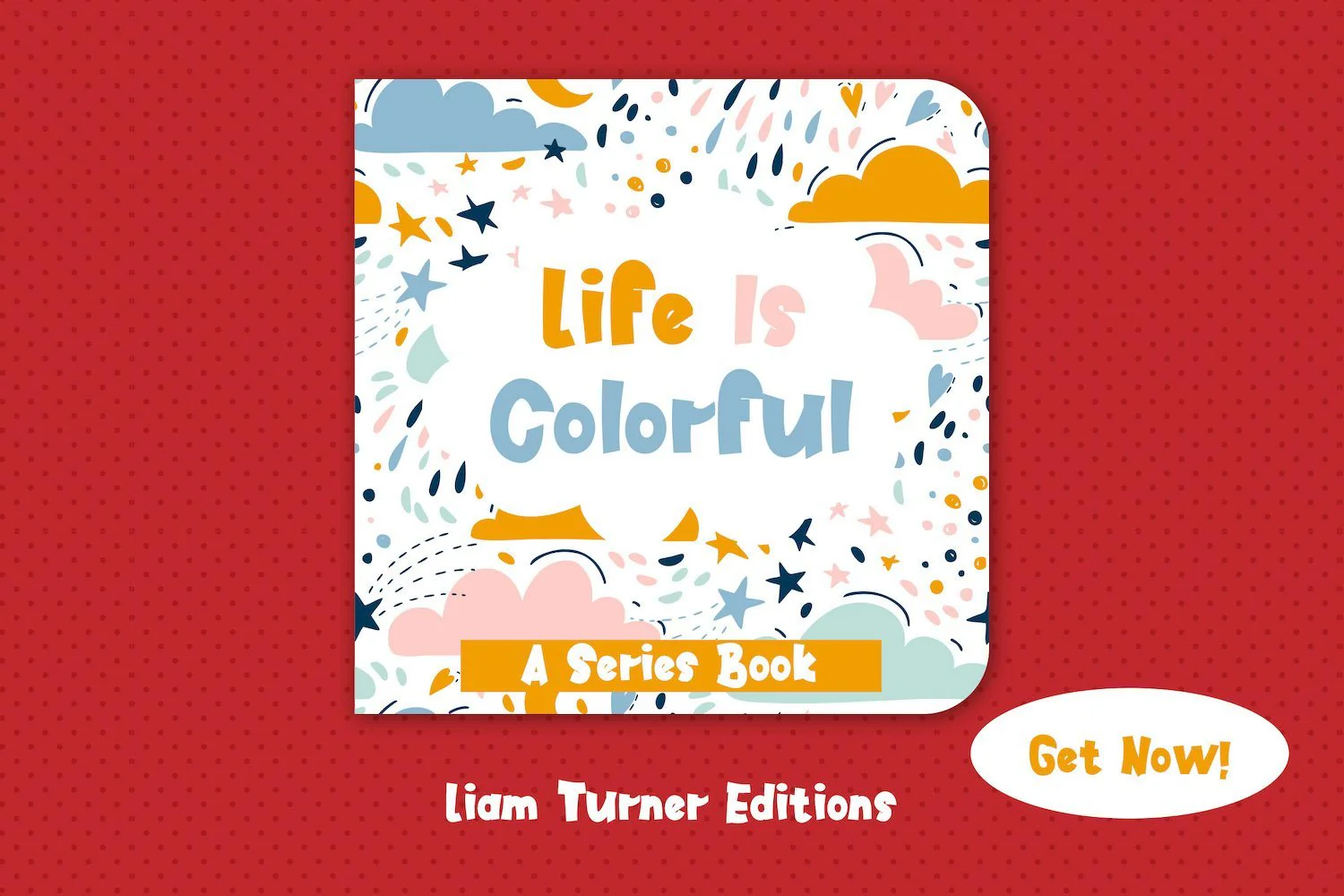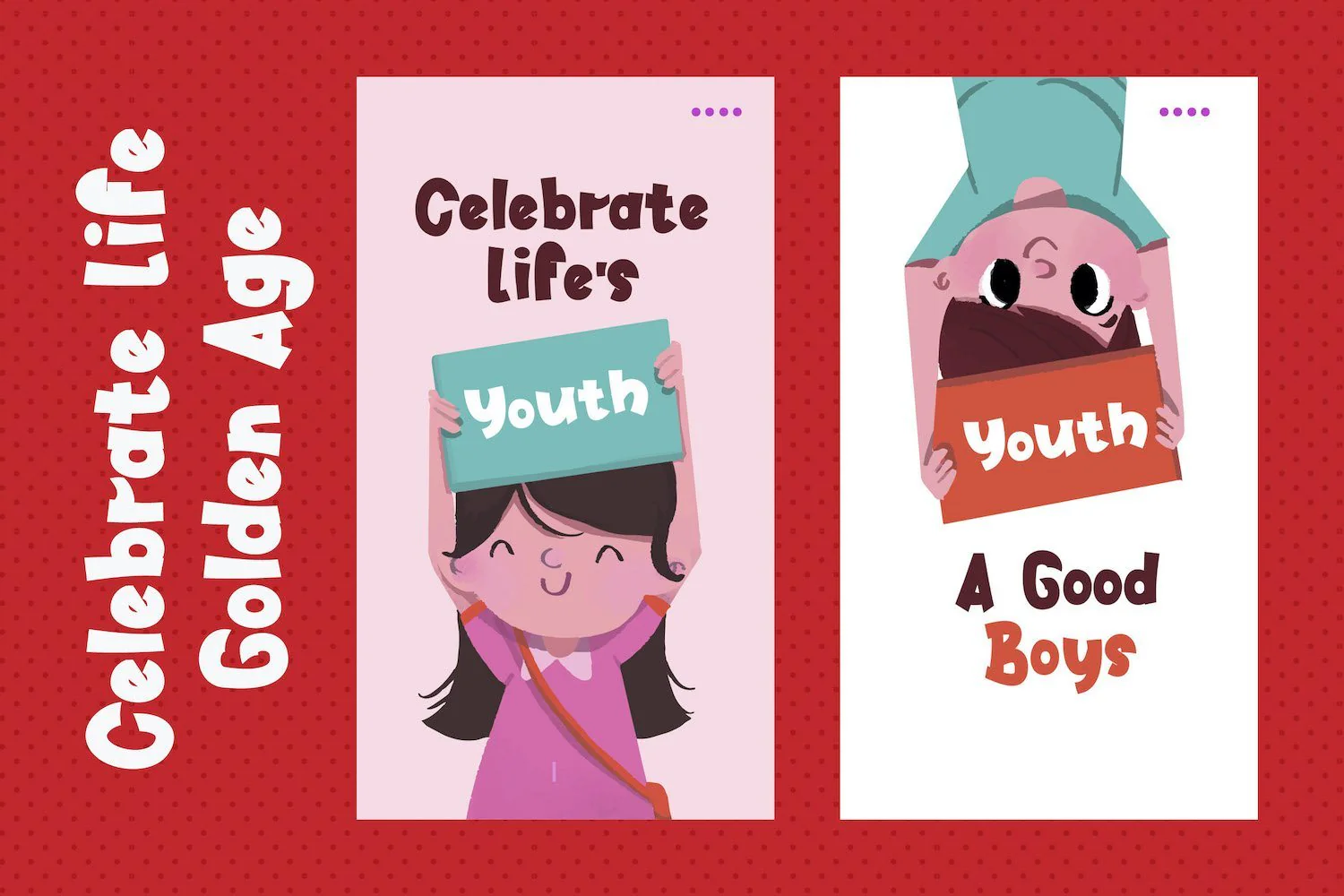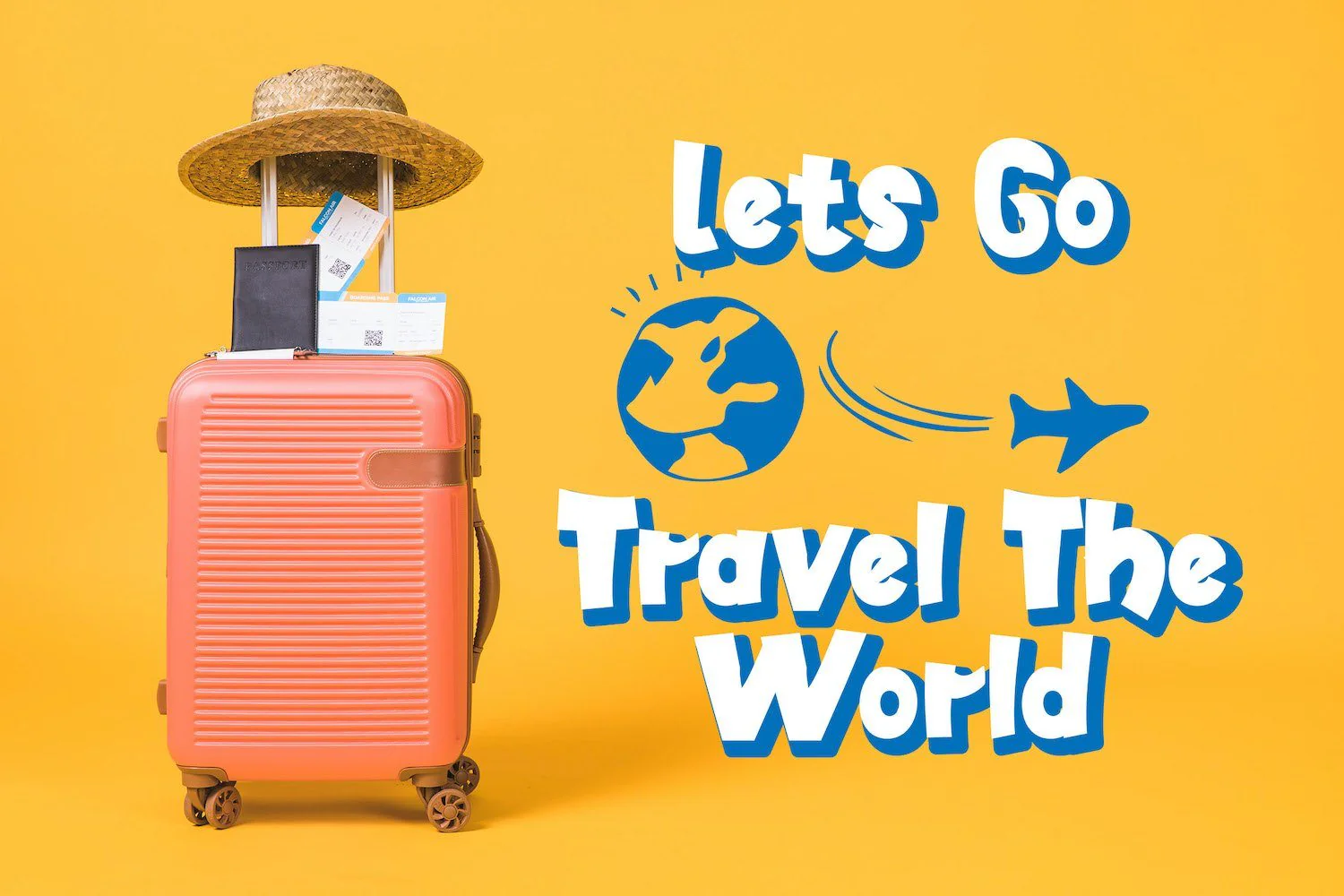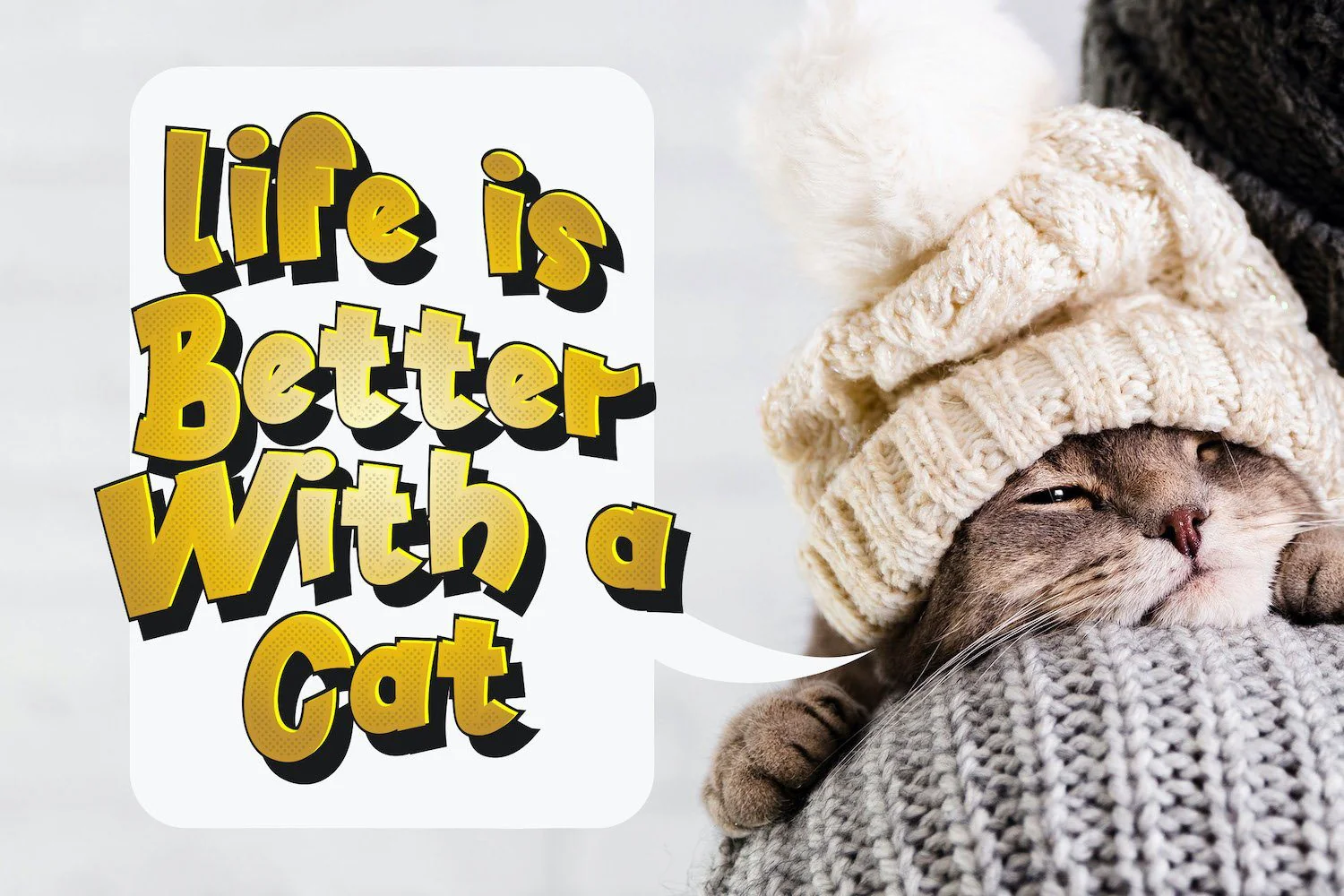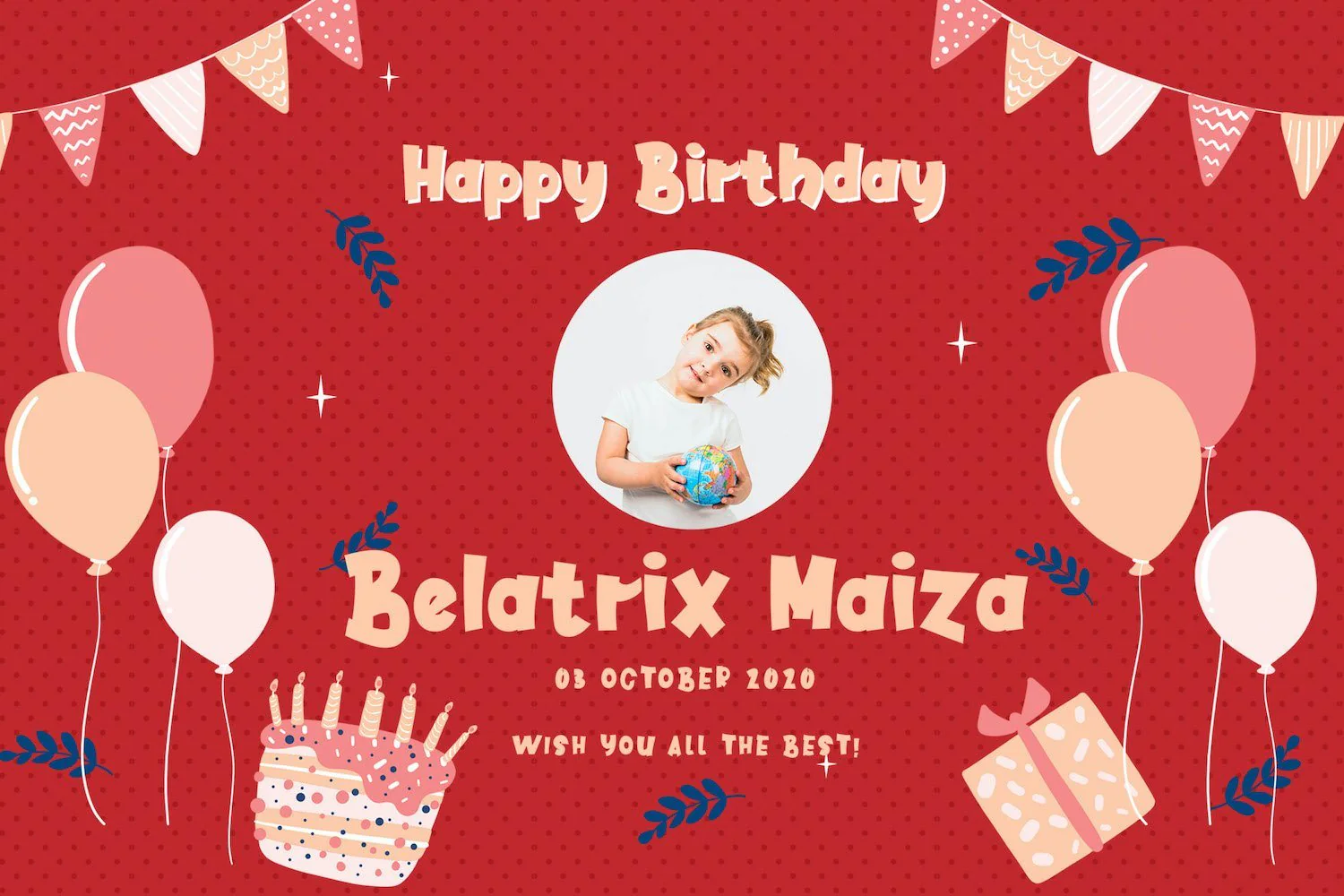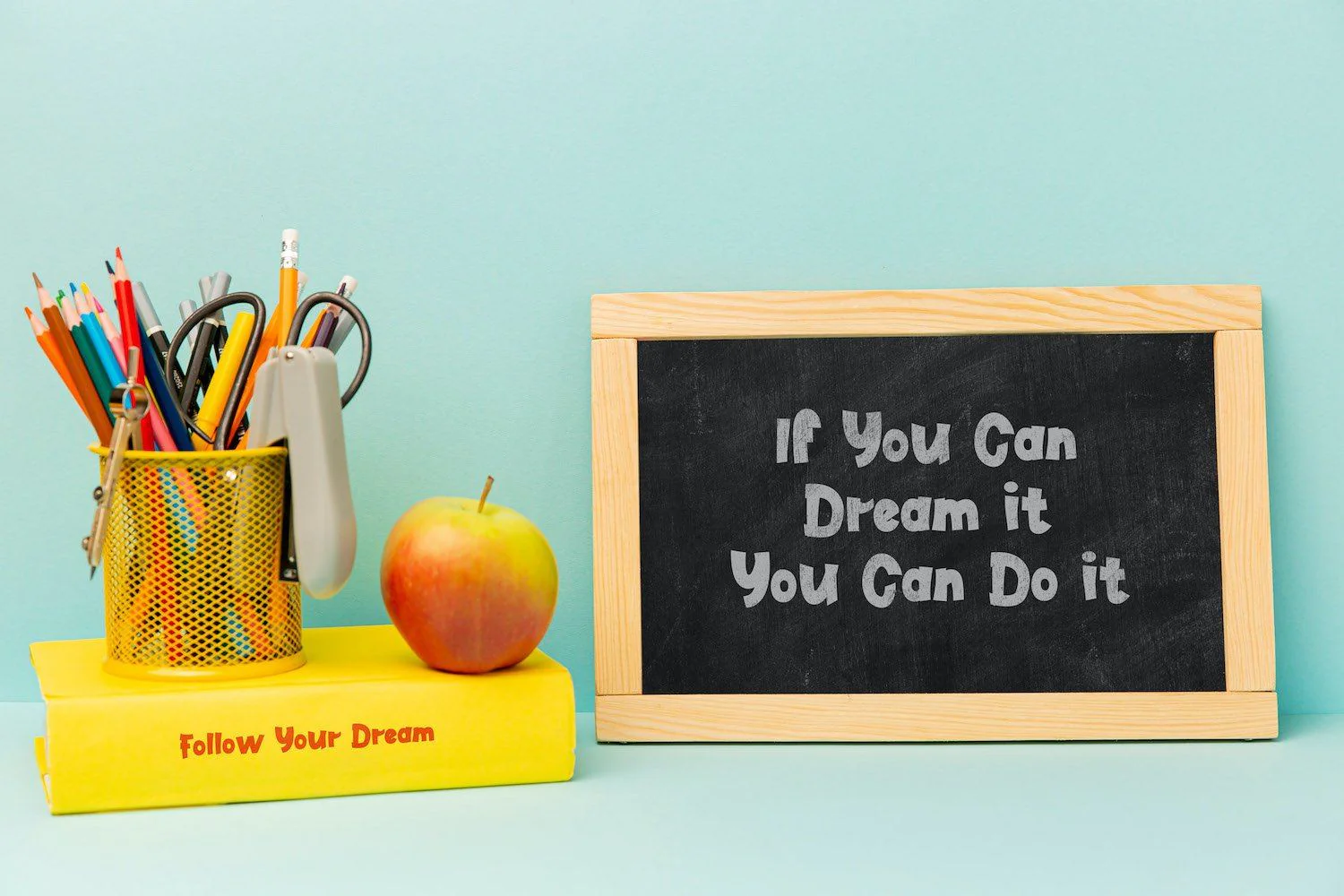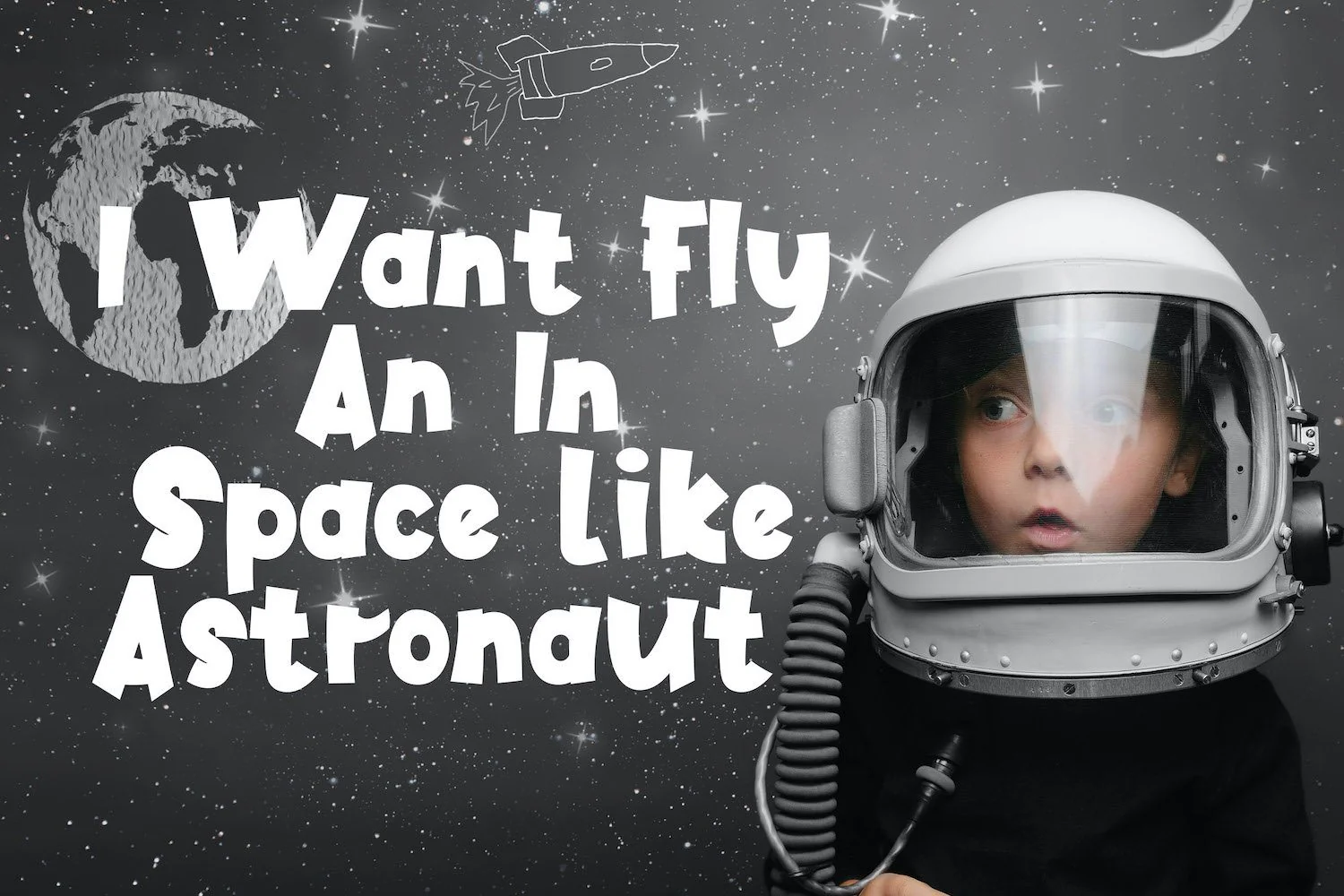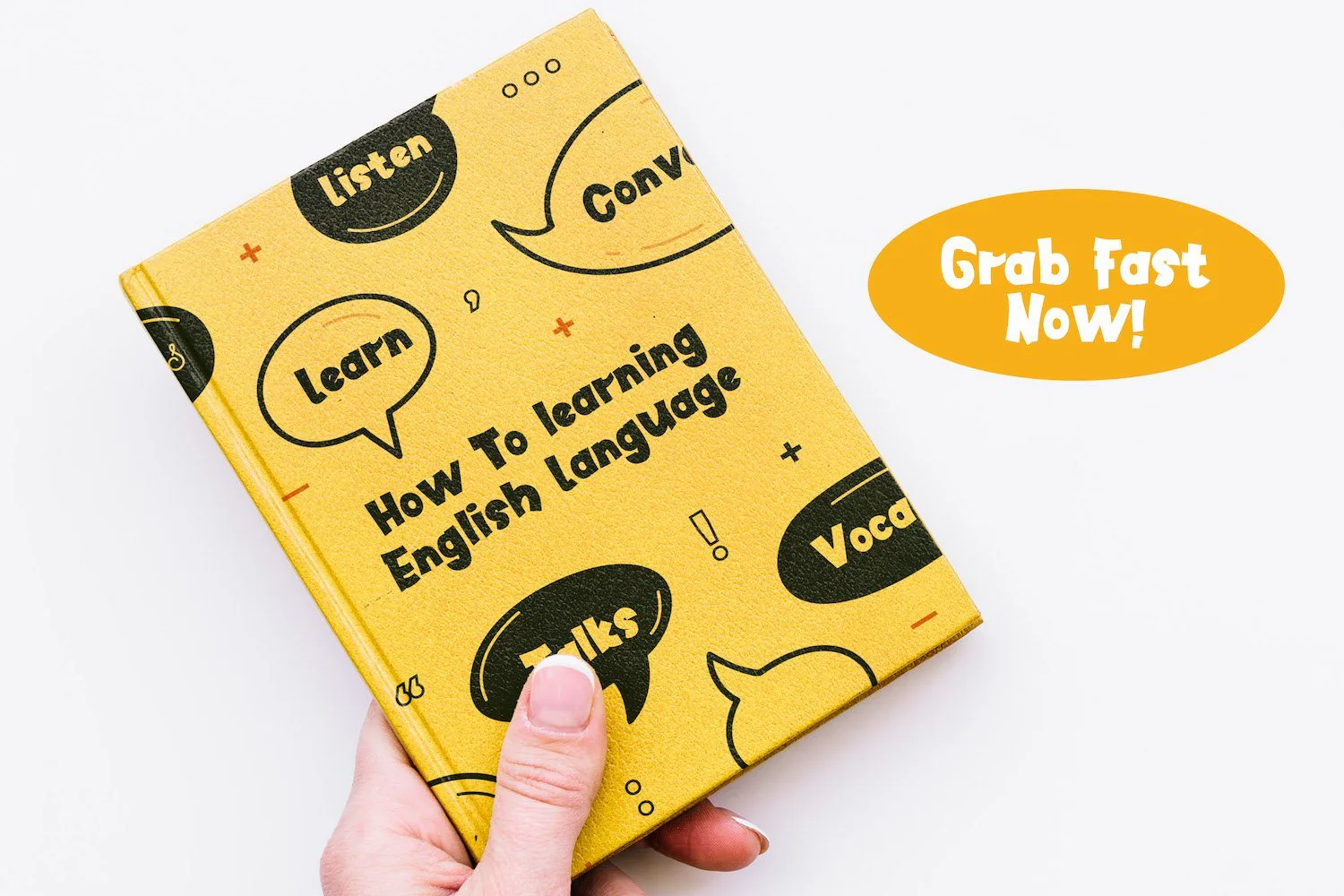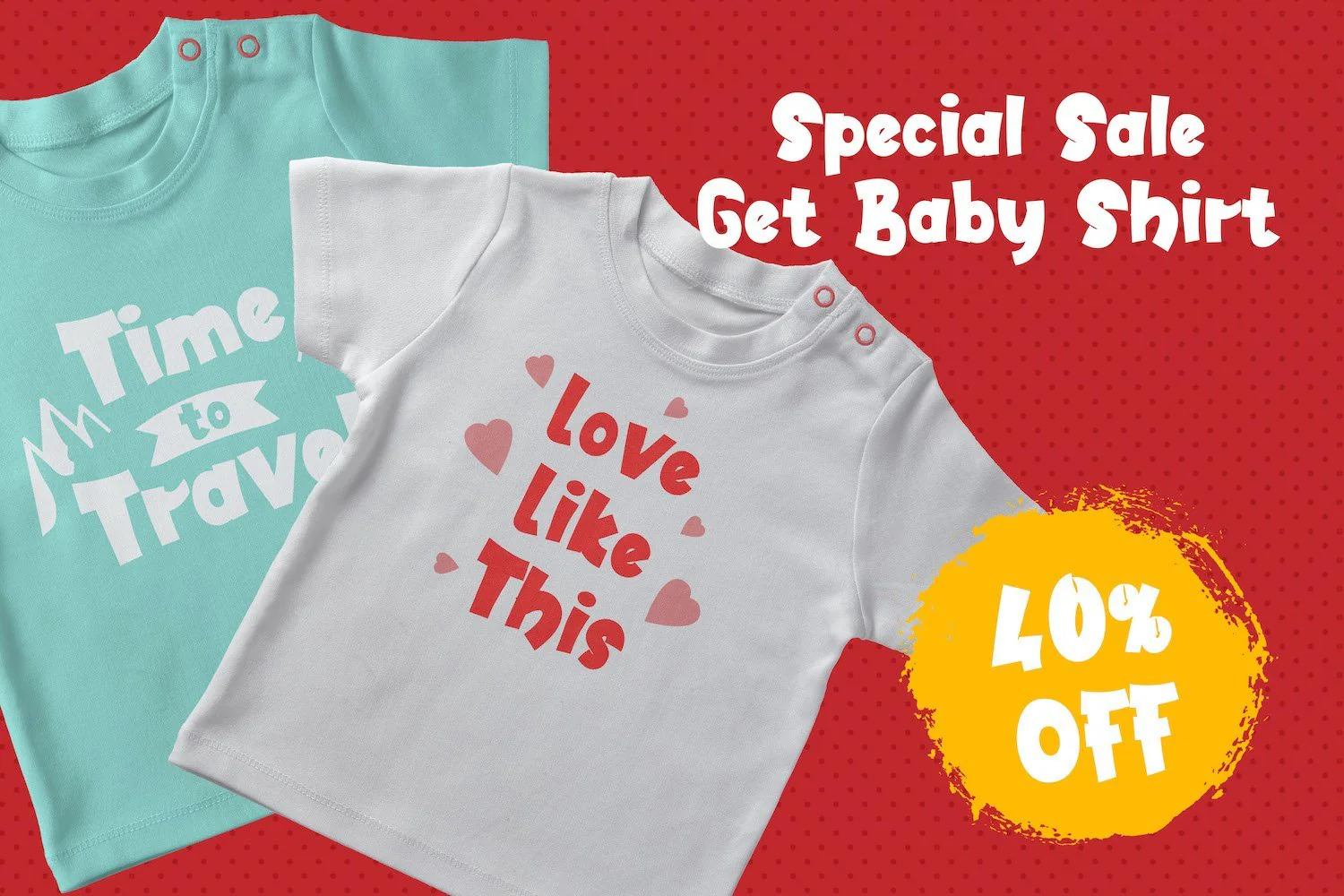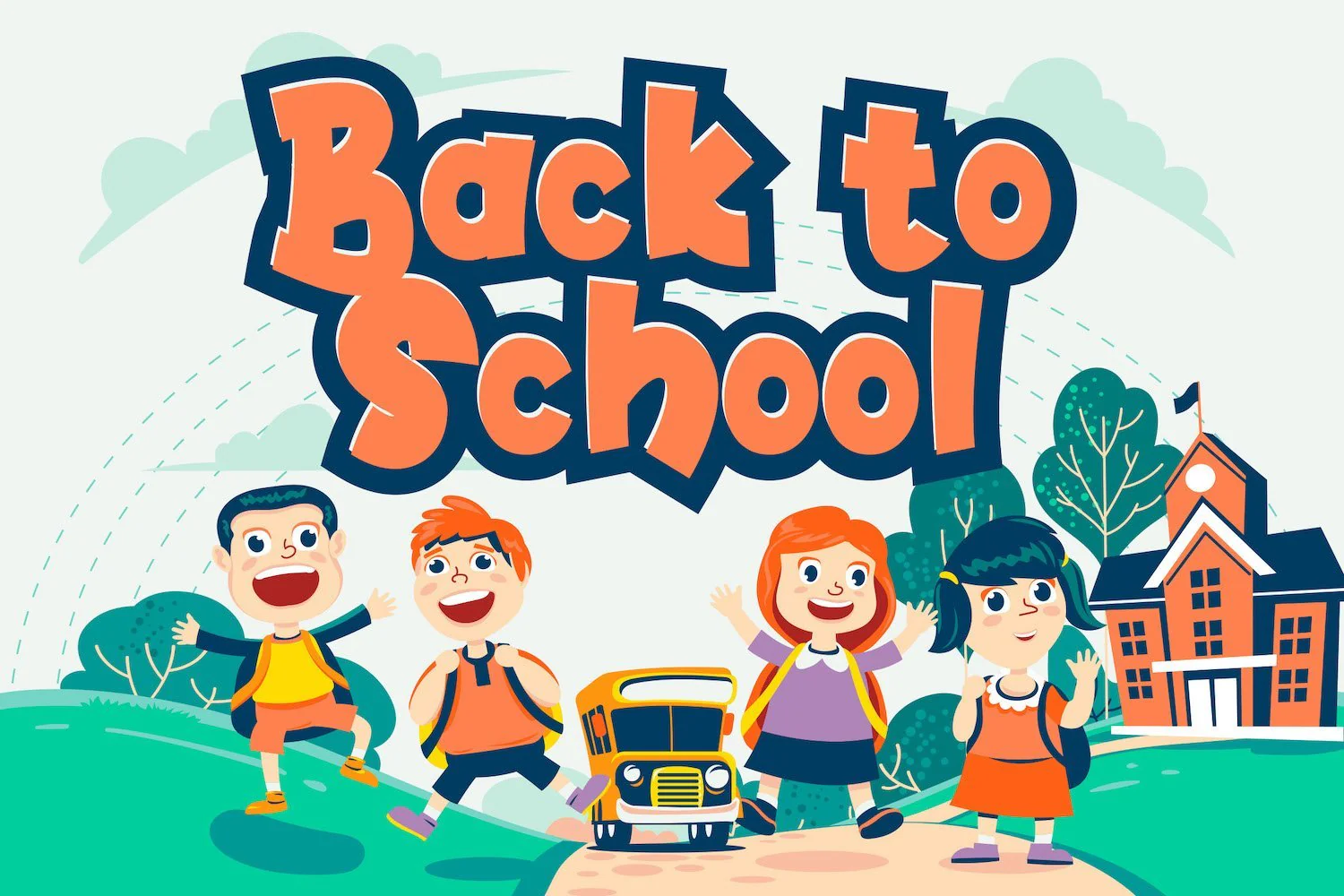
Amazing Kids - Playful Display Font
Introducing Amazing Kids - Playful Display Font
Amazing Kids is a cute and quirky display font. It will add an incredibly joyful touch to your designs. Add this beautiful display font to each of your creative ideas and notice how it makes them stand out!
Introducing Amazing Kids - Playful Display Font
Amazing Kids is a cute and quirky display font. It will add an incredibly joyful touch to your designs. Add this beautiful display font to each of your creative ideas and notice how it makes them stand out!